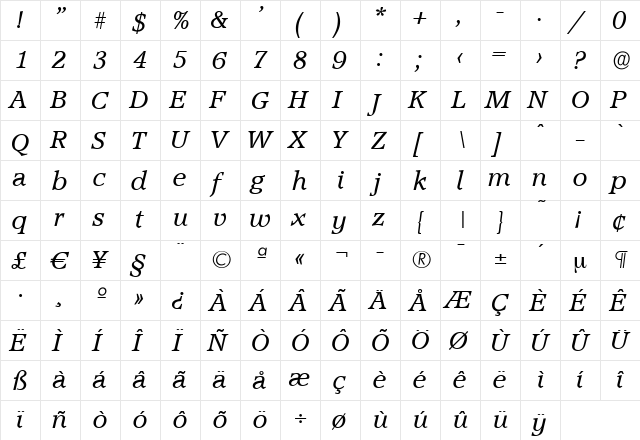
MichaelBecker Italic
Design Context for MichaelBecker Typeface
MichaelBecker is a composed and adaptable typeface that performs quietly and consistently across a wide range of design contexts. The dynamic lean of this cut emphasises speed and emphasis in any layout.
Pro Tip: Try MichaelBecker for annotation and caption copy alongside an upright companion — the contrast in angle creates a dynamic but ordered typographic system.